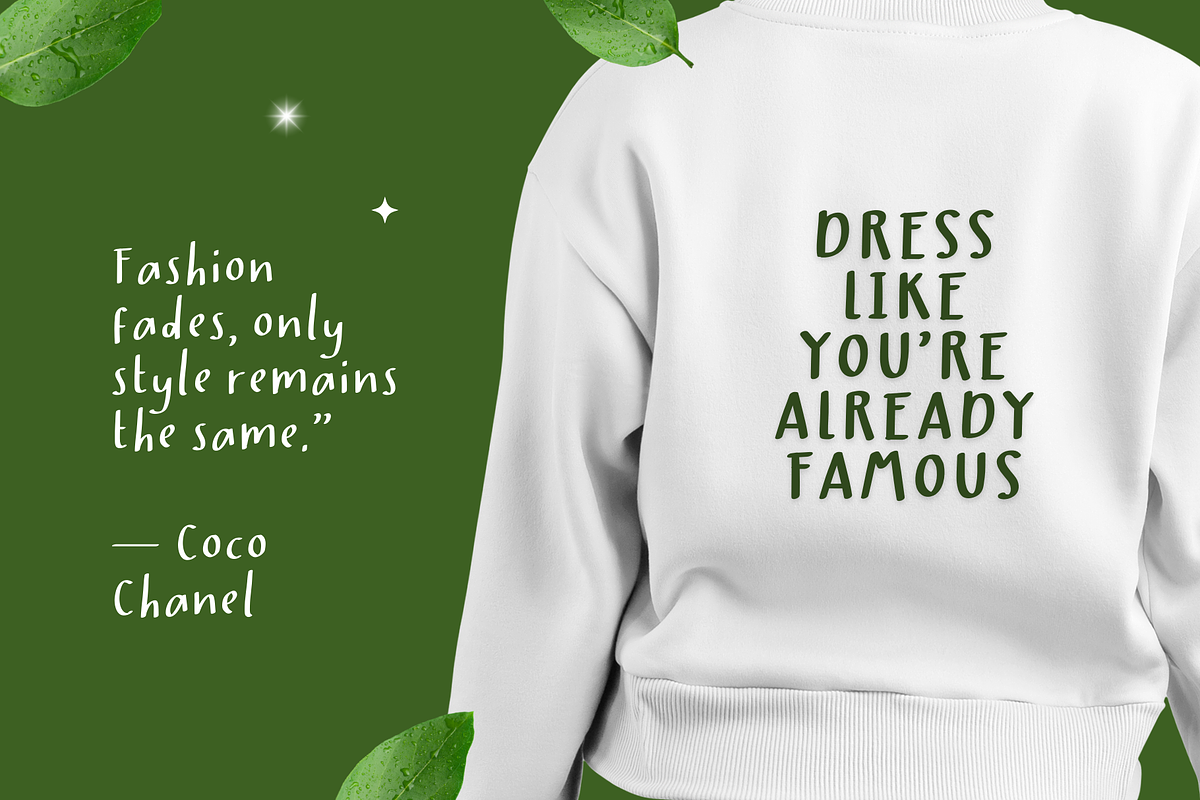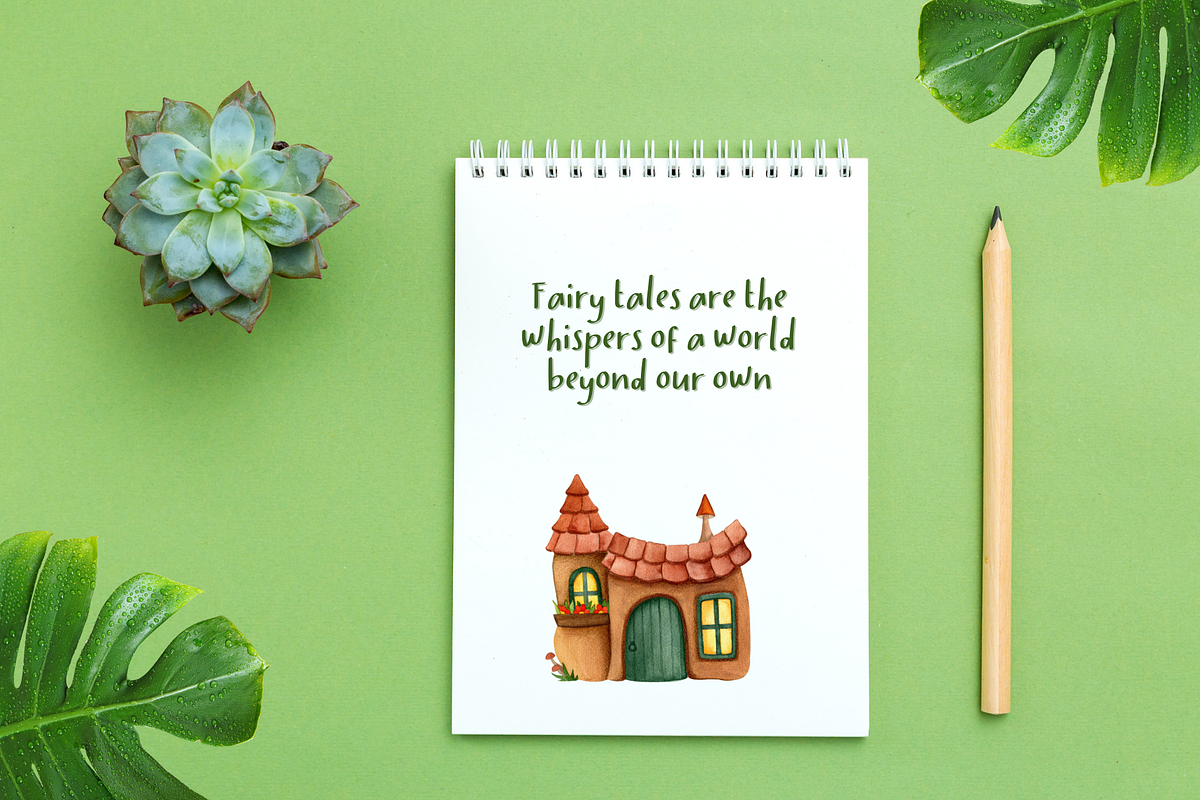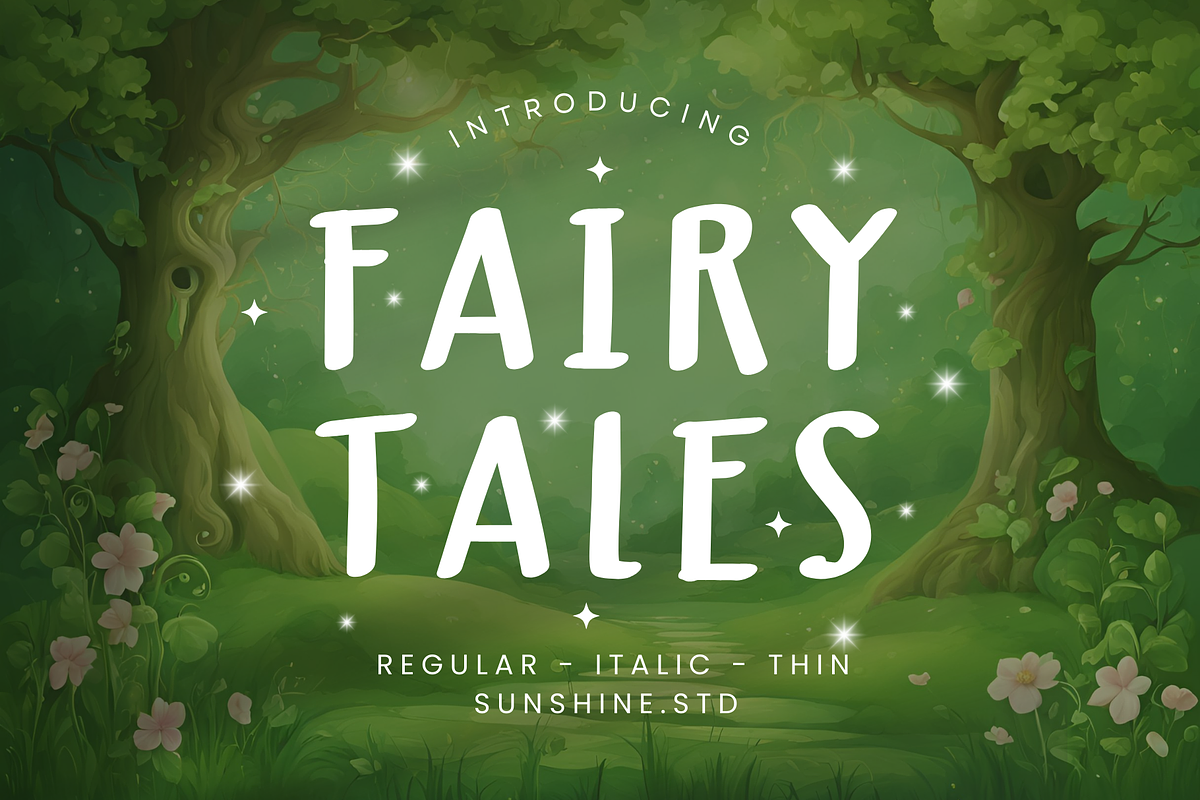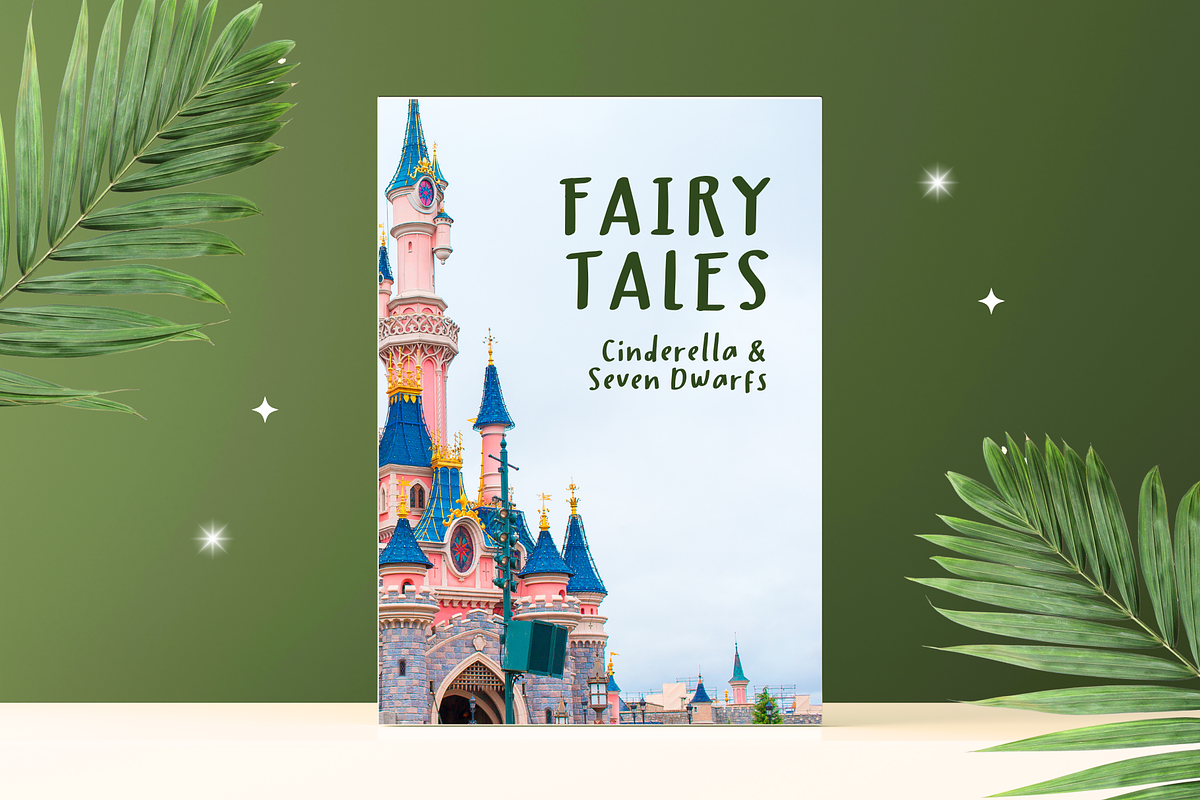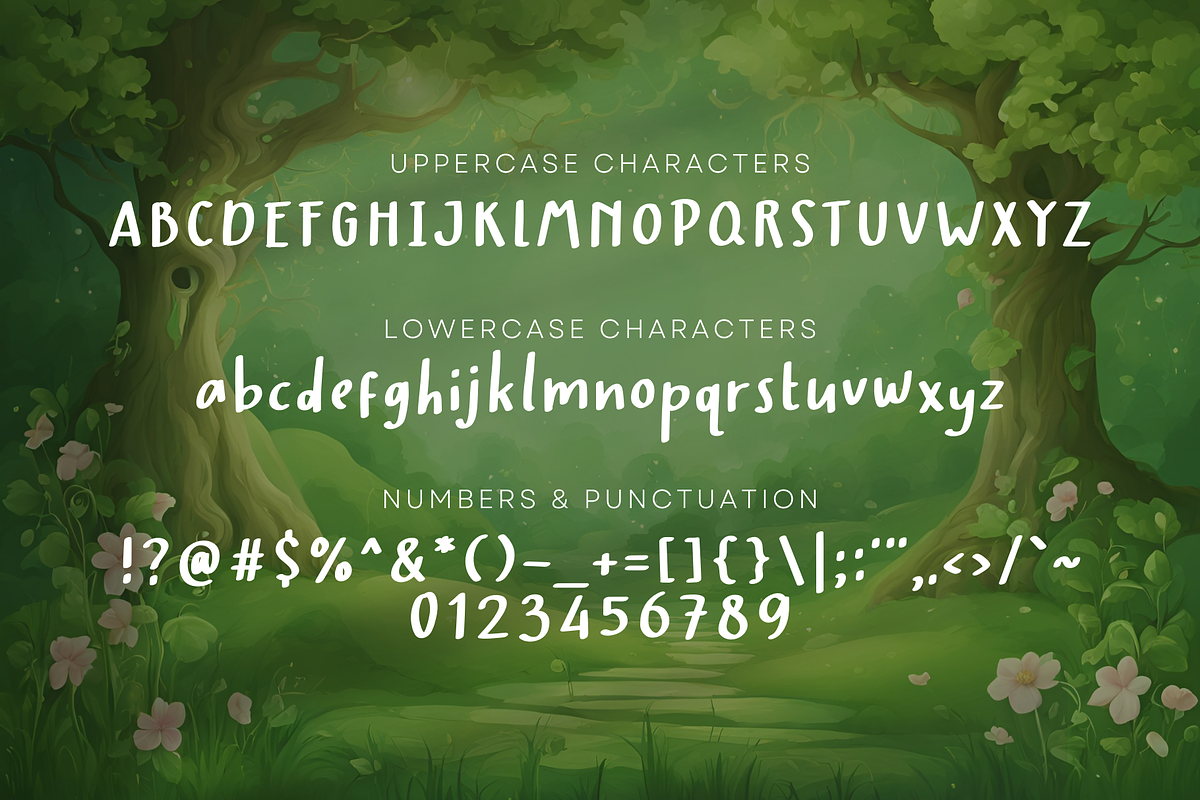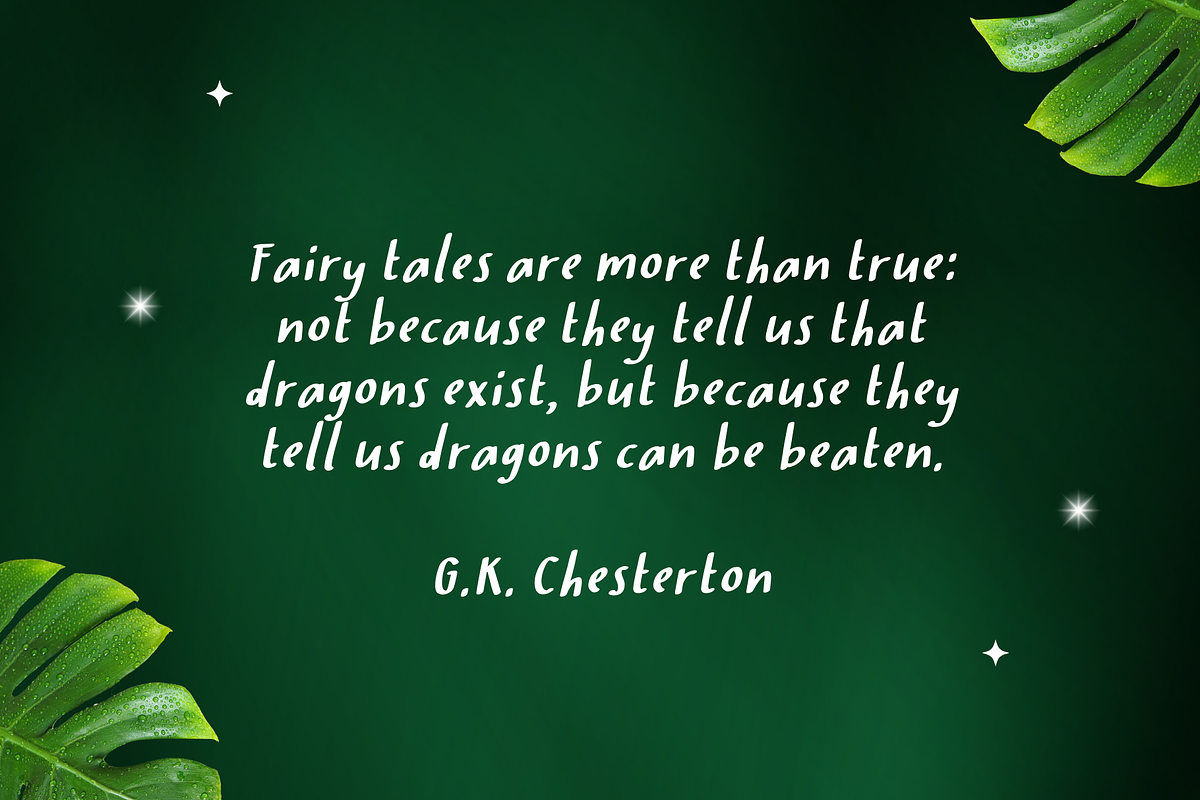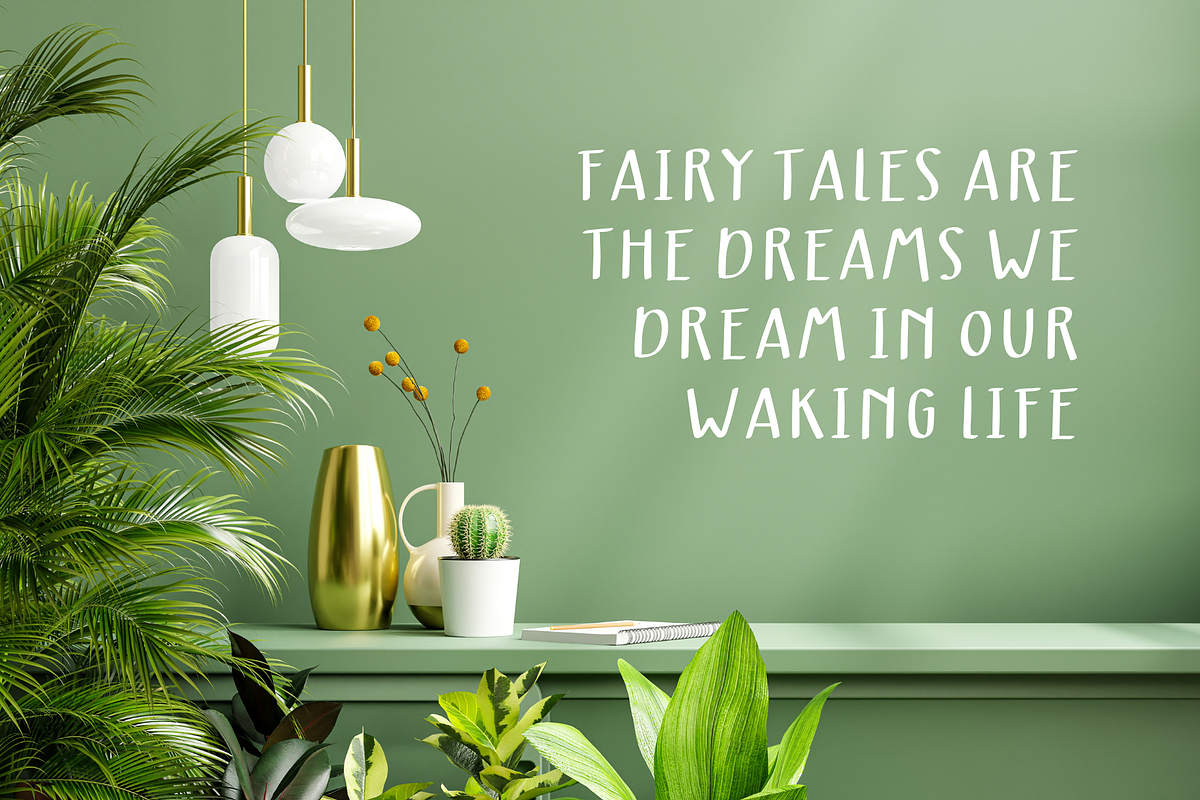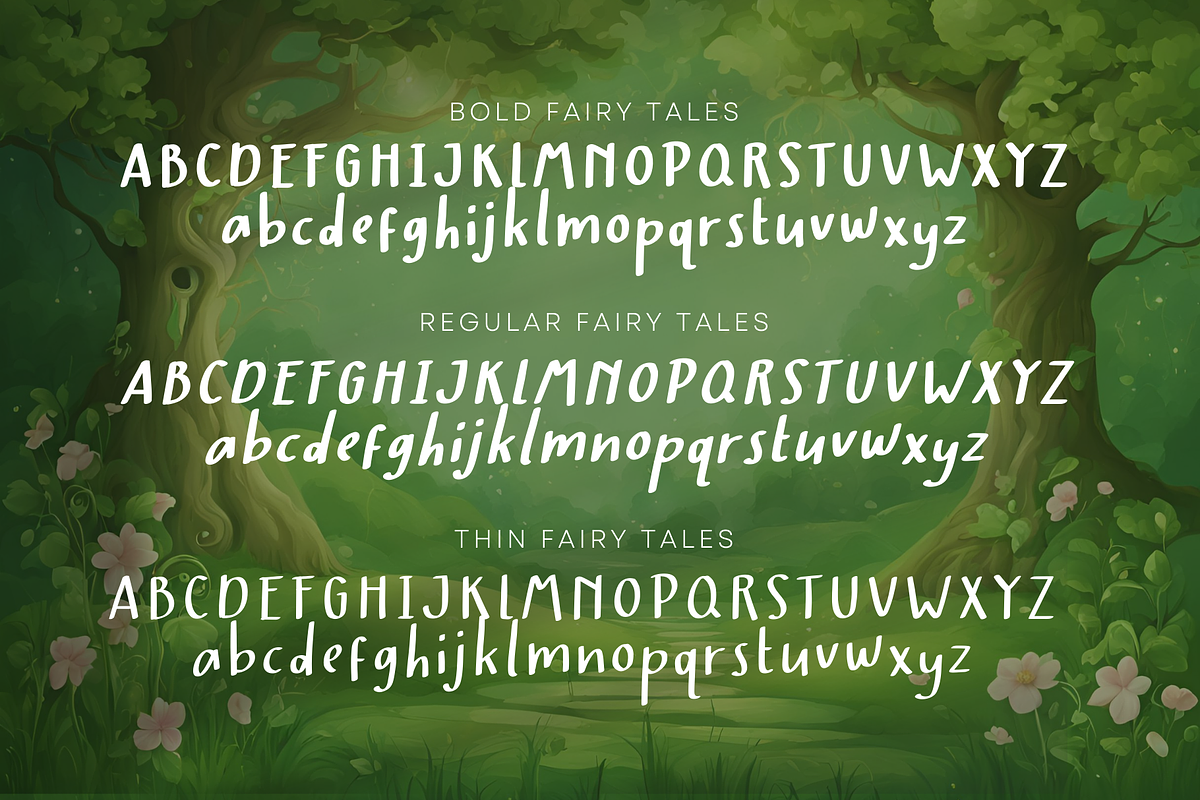
Fairy Tales Handwriting Font
Step into a world of whimsy and wonder with Fairy Tales, our captivating handwriting font designed to evoke a sense of magic and storytelling! Perfect for creatives looking to add a playful yet elegant touch to their projects, Fairy Tales is inspired by the charm of classic fairy tales and the beauty of handwritten letters.